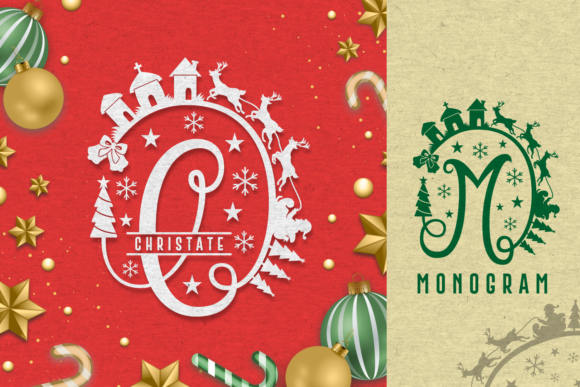
Behold, the enthralling Christate font, a captivating decorative font that will transform your creative visions into masterpieces. Experience the joy of crafting stunning concert posters, invitations, and design projects that exude warmth and charm. Immerse yourself in the whimsical world of Christate, where every letter dances with elegance and grace. Unleash your imagination and let the free-flowing strokes of Christate carry your designs to new heights of creativity.
Step into a realm of enchantment, where your words take on a life of their own. The delicate curves and playful swashes of Christate will infuse your designs with a sense of wonder and delight. Let your imagination soar as you explore the endless possibilities that await you with this enchanting font. Whether you're a seasoned designer or just starting your creative journey, Christate will guide you towards artistic greatness.
With Christate by your side, you'll effortlessly elevate your designs, leaving a lasting impression on your audience. Prepare to be mesmerized as your projects blossom into works of art, captivating all who lay their eyes upon them. Embrace the beauty of Christate and embark on a creative odyssey that will leave you breathless.